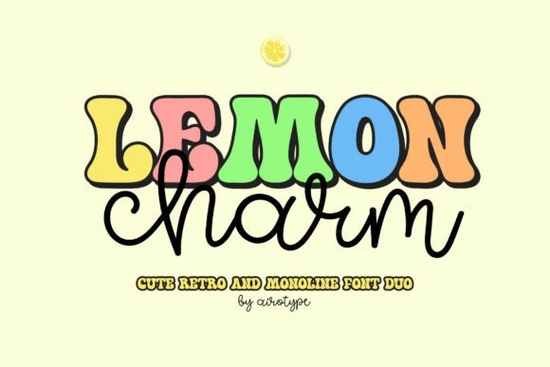
If you're looking for a cheerful, versatile typeface that adds personality without overwhelming your design, the Lemon Charm font is worth a closer look. It’s a playful duo pairing a retro-inspired display font with a bouncy handwritten script that works especially well for projects needing a lighthearted, modern touch. Whether you’re designing birthday invitations, custom tumblers, or POD apparel, this font brings warmth and charm without feeling overly trendy.
What makes Lemon Charm stand out from other script fonts?
Many script fonts lean heavily into elegance or minimalism, but Lemon Charm embraces whimsy. The uppercase letters in the retro-style font have rounded edges and subtle curves that feel nostalgic yet fresh. Meanwhile, the handwritten companion has natural bounce and varied stroke widths, mimicking real pen-on-paper movement. Together, they create contrast while staying cohesive ideal for layering headlines with supporting text or mixing styles on a single product.
Unlike overly ornate scripts that can be hard to read at small sizes, both fonts in the Lemon Charm set maintain clarity even when scaled down. That makes them practical for stickers, keychains, or sublimation mugs where space is limited but legibility matters.
What kinds of projects work best with this font?
Lemon Charm shines in casual, joyful contexts. Think:
- Birthday party decor (banners, cupcake toppers, favor tags)
- Summer-themed apparel (“Sip the Sunshine,” “Beach Days Ahead”)
- Handmade craft labels (soaps, candles, baked goods)
- Social media graphics for lifestyle or wellness brands
- Personalized gifts like engraved keychains or etched glassware
Because it avoids being too cutesy or juvenile, it also suits small businesses targeting young adults like boutique coffee shops, plant stores, or indie skincare lines. The retro element gives it a slightly vintage vibe, while the script keeps it approachable.
How does it compare to similar fonts on Creative Fabrica?
If you’ve browsed script fonts before, you might already know options like Tyson Font, which offers bold, condensed letterforms great for streetwear or urban branding. Or Bubble Font, which leans into ultra-rounded, cartoonish shapes perfect for kids’ products but less versatile for broader audiences.
Regalyn Font takes a more refined route with delicate swashes and formal spacing, ideal for wedding stationery or luxury packaging. In contrast, Lemon Charm sits comfortably in the middle: friendly enough for everyday crafts, but polished enough for commercial use.
Its dual-font structure is also a practical advantage. Many designers find themselves hunting for complementary pairings but here, both styles are designed to work together from the start, saving time during mockups or client revisions.
Is it easy to use for beginners?
That said, if you want to maximize its potential, the handwritten version includes alternate characters and ending swashes (accessible via OpenType features in supported software). Even without those extras, though, the default glyphs look intentional and lively great for hobbyists who don’t want to fuss with advanced typography settings.
Before committing, consider your project’s tone. Lemon Charm excels in upbeat, informal settings but might feel out of place on something serious like legal documents or corporate reports. If your brand voice is warm, optimistic, or nostalgic, this font will likely feel like a natural fit.
- ✅ Confirm your design needs a friendly, not formal, tone
- ✅ Test readability at your final output size (especially for small items)
- ✅ Pair with simple sans-serif fonts if adding body text (avoid competing scripts)
- ✅ Use contrasting weights try the retro font for headlines, script for accents